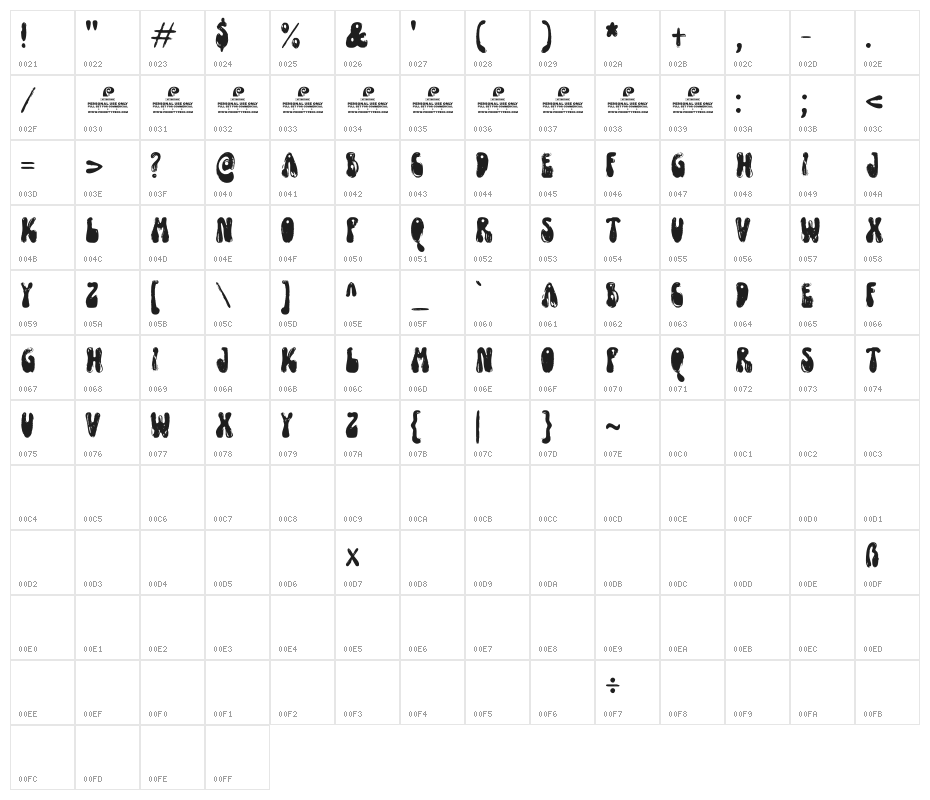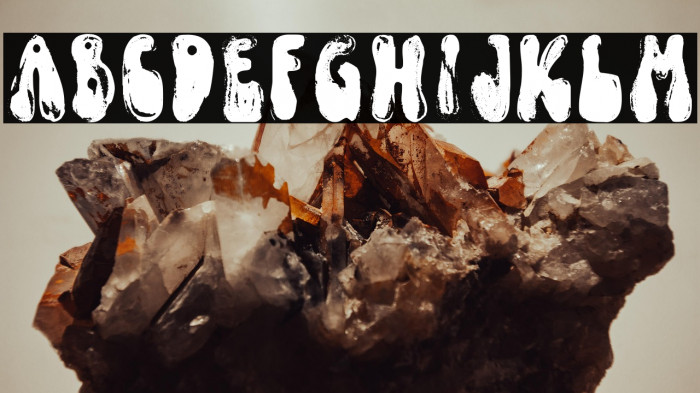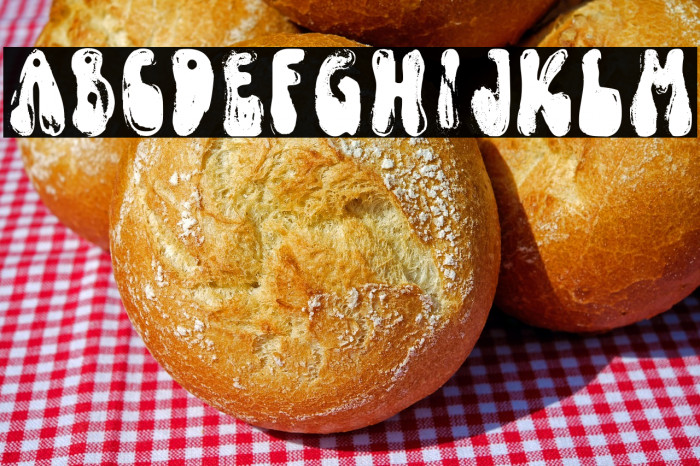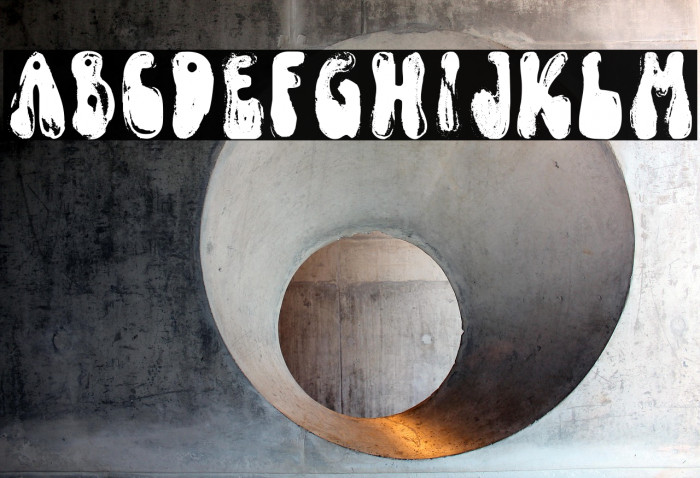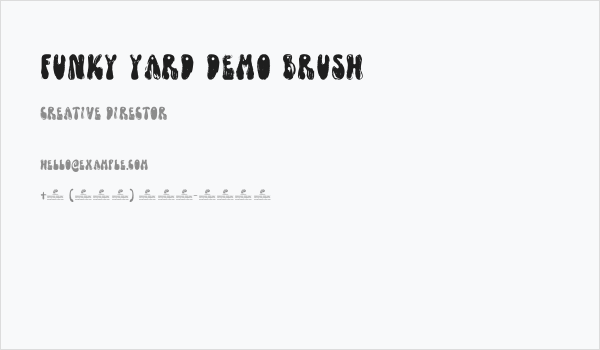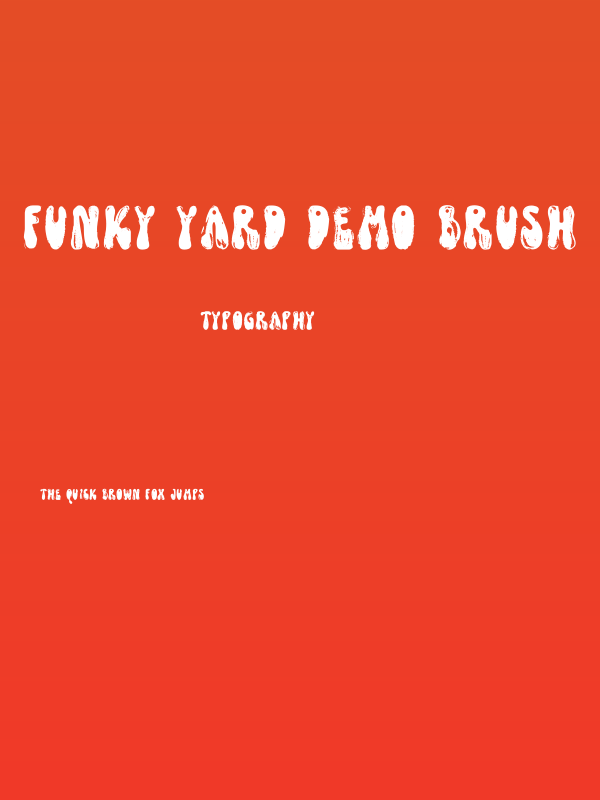
Funky Yard DEMO Brush Font
Funky Yard DEMO Brush Description
This font features a bold and expressive brush style, characterized by its thick, flowing strokes and dynamic, hand-painted appearance. The letters exhibit a sense of movement and energy, with irregular edges and varying stroke widths that give it a lively and artistic feel. The uppercase and lowercase letters maintain a consistent style, while the numbers and special characters complement the overall aesthetic with their bold and playful design. This font is perfect for projects that require a creative and eye-catching look.
| Proposed Projects | Ideal for posters, album covers, branding, and any creative projects that require a bold, artistic touch. |